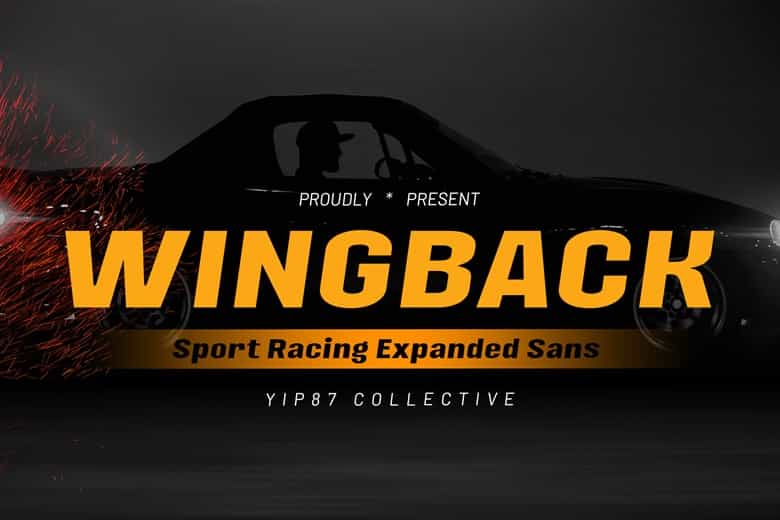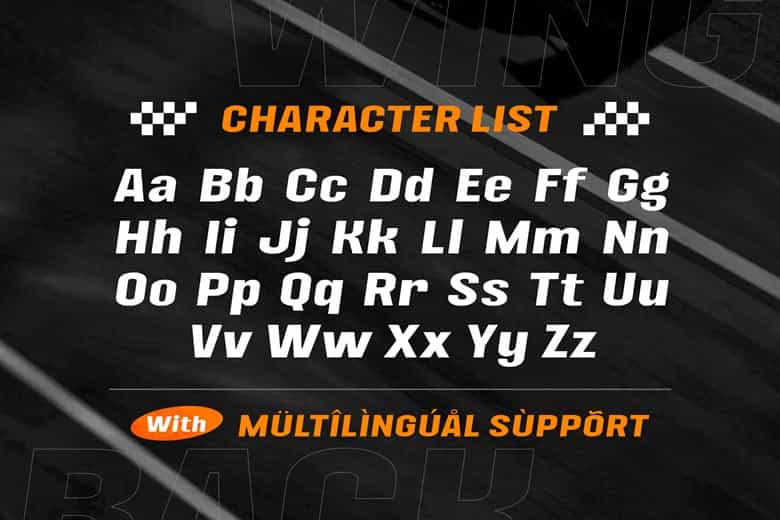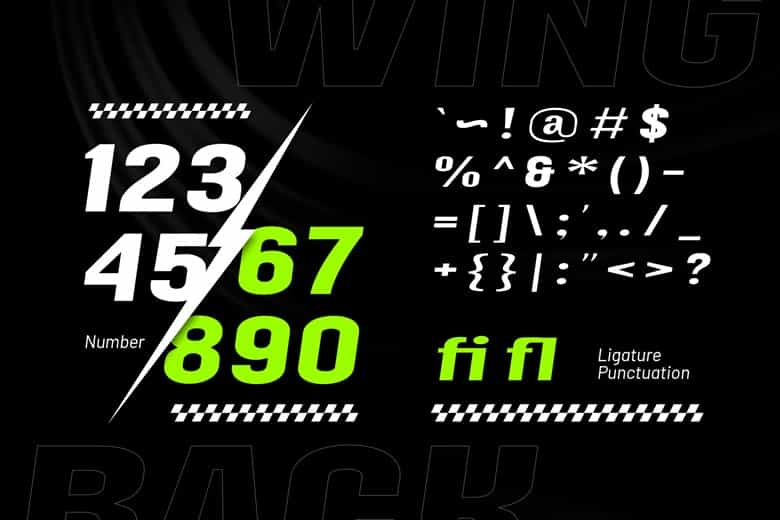
Wingback is a modern sport and racing sans serif typeface that delivers motion and velocity. Its big and somewhat aggressive lettering and its lines are sharp, which reflects the spirit of the motorsports. Suitable for sports related projects, ideal for logos, banners and other merchandise linked to racing, teams and sports. Don’t hesitate to improve your branding design with Wingback Font – a great font for your next project.